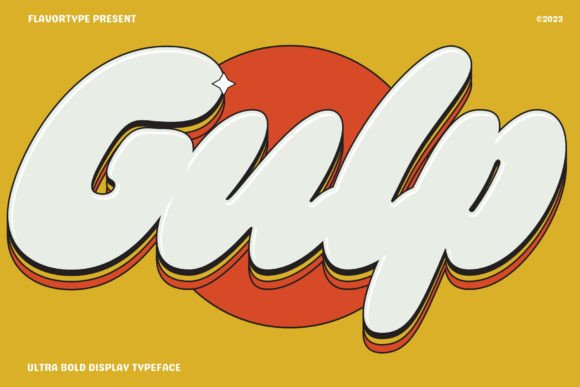
Get ready to inject a burst of effervescent charm into your creative projects with Gulp Font, the ultimate display font that embodies joy and friendliness. This playful and chunky font, crafted by the skilled hands of flavortype, is an absolute delight for designers, artists, and anyone seeking to add a touch of whimsy to their work.
Gulp Font bursts onto the scene with its energetic and bubbly personality, making it the perfect choice for projects that demand attention. Its bold and captivating letterforms dance across the page, creating a sense of cheerfulness and optimism that is sure to leave a lasting impression. Whether you're designing eye-catching posters, cheerful greeting cards, or vibrant social media graphics, Gulp Font is guaranteed to make your creations shine.
But Gulp Font is more than just a pretty face. Its versatility and adaptability make it a valuable asset in any designer's toolbox. With its wide range of applications, Gulp Font effortlessly elevates the impact of logos, branding materials, and even children's books. Its ability to effortlessly capture the essence of fun and lightheartedness makes it an ideal choice for projects that aim to entertain, engage, and inspire.
Immerse yourself in the world of Gulp Font and let its infectious energy transform your creative vision into a reality. Unleash your imagination and explore the endless possibilities that await you with this remarkable font. Join the growing community of designers who have discovered the magic of Gulp Font and let your creativity soar to new heights.